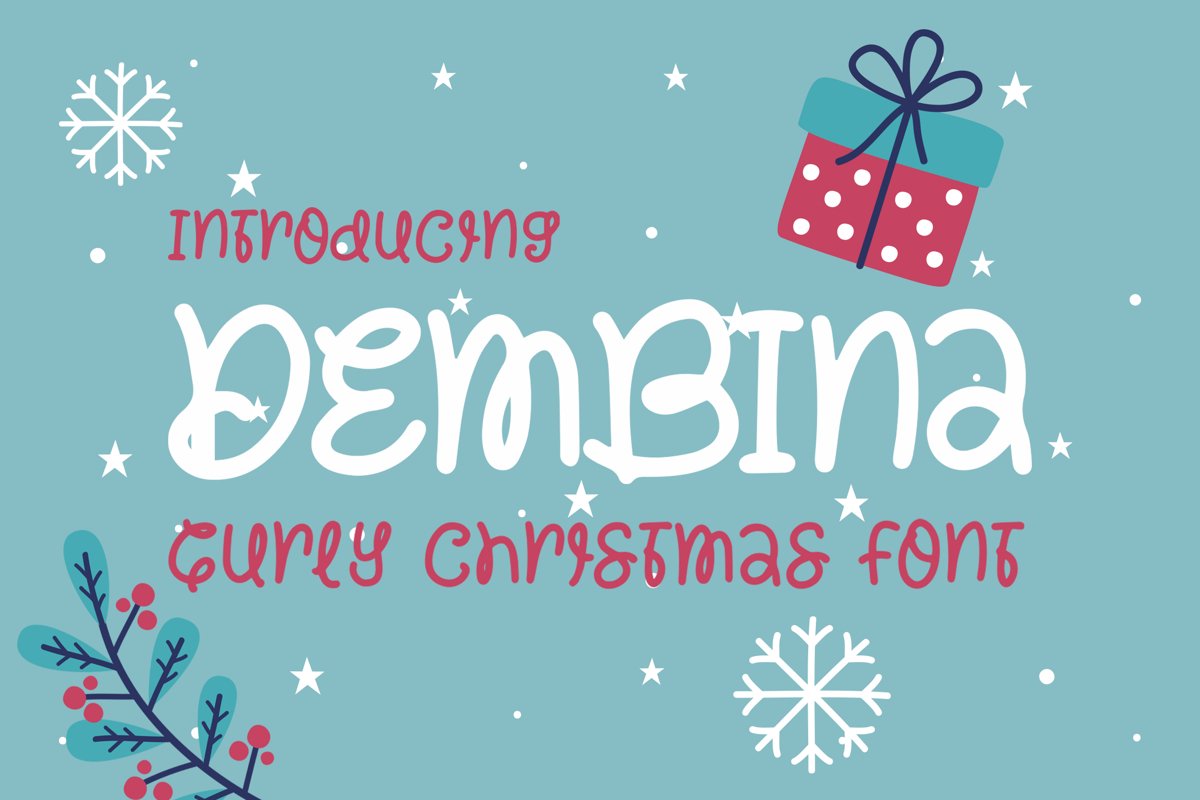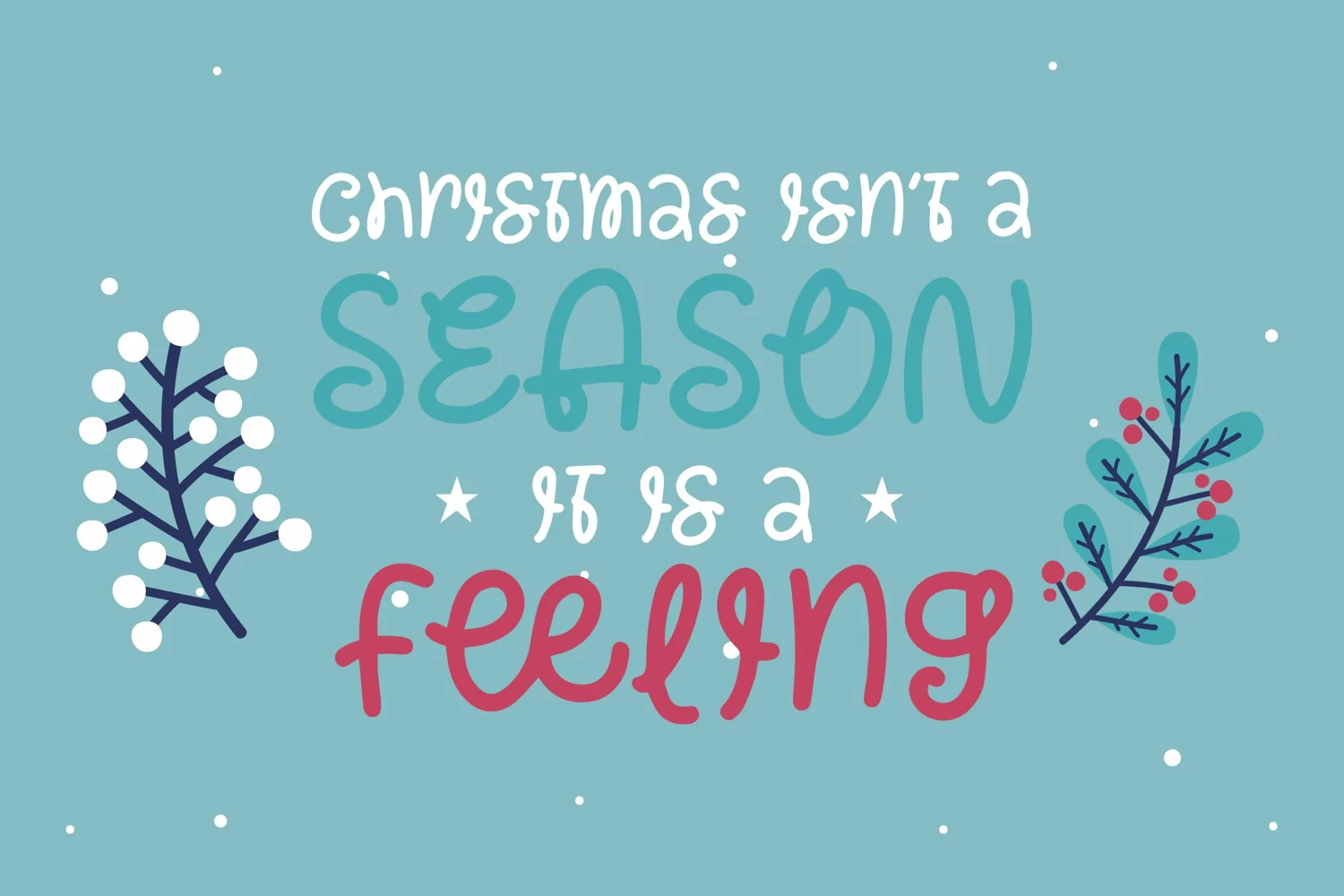
Dembina - Curey Chrisimas Font that contain lowercase, uppercase, symbol, and also support multi language. There’s a lot ligatures in this font. This Font also comes with ligatures, alternates and many more. this font suitable for fashion, branding, catalog and other design what you want.
Dembina